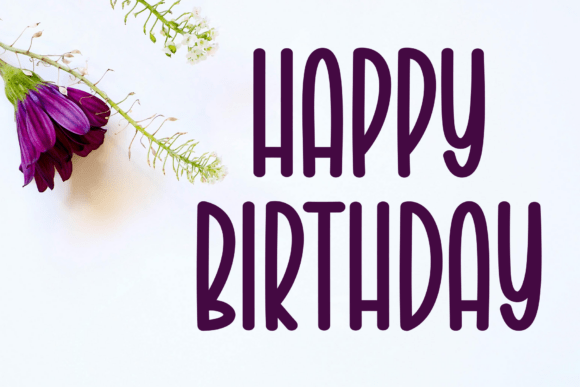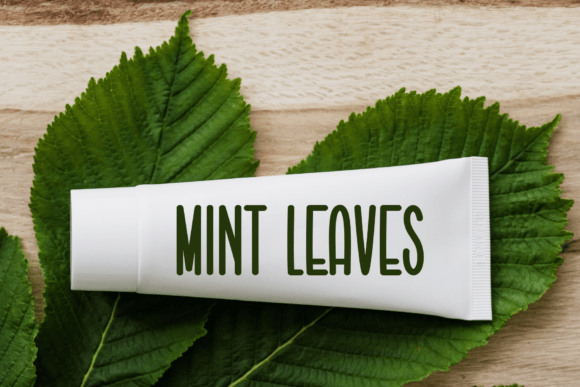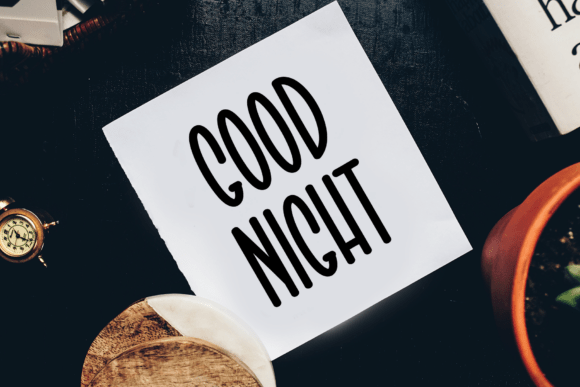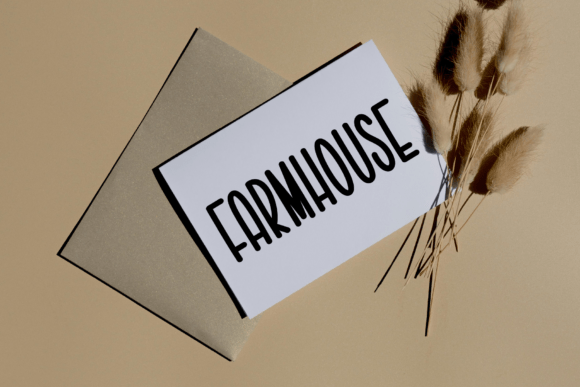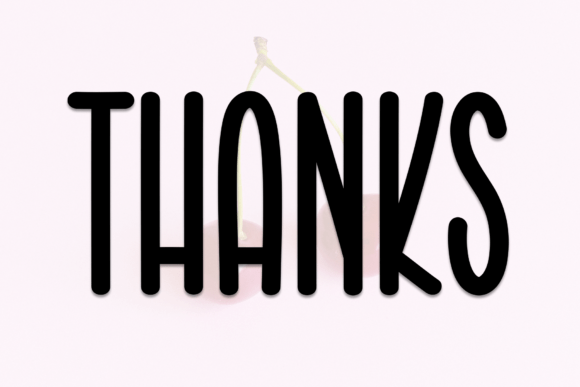
Introducing Cherry Font: The Perfect Blend of Luxury and Casualness
Are you a designer or crafter looking for a font that exudes elegance and sophistication, yet still has a relaxed and sporty vibe? Look no further than Cherry Font! This display font, designed to resemble marker-drawn letters, is perfect for adding a touch of luxury and whimsy to your designs.
What is Cherry Font?
Cherry Font is a unique and stylish display font that mimics the look of marker-drawn letters. Its casual, hand-drawn feel makes it perfect for a wide range of design applications, from branding and logos to wedding supplies, greeting cards, and marketing promotions.
Key Features of Cherry Font
- Relaxed and Sporty Feel: Cherry Font has a laid-back, effortless vibe that’s perfect for designs that need to feel approachable and friendly.
- Luxurious and Elegant: Despite its casual feel, Cherry Font still manages to convey a sense of sophistication and luxury, making it perfect for high-end branding and designs.
- Marker-Drawn Look: The font’s marker-drawn appearance gives it a unique and eye-catching quality that’s sure to make your designs stand out.
- Versatile: Cherry Font can be used for a wide range of design applications, from digital projects to print materials.
Use Cases for Cherry Font
So, what can you use Cherry Font for? The possibilities are endless! Here are a few ideas to get you started:
- Branding and Logos: Cherry Font is perfect for creating unique and memorable logos that stand out from the crowd.
- Wedding Supplies: Add a touch of elegance and whimsy to your wedding designs, from invitations to decorations.
- Greeting Cards: Cherry Font is perfect for creating eye-catching and heartfelt greeting cards for any occasion.
- Fashion and Lookbooks: Use Cherry Font to add a touch of luxury and sophistication to your fashion designs and lookbooks.
- Marketing Promotions: Make your marketing materials stand out with Cherry Font’s unique and eye-catching style.
Tips for Using Cherry Font
Here are a few tips for getting the most out of Cherry Font:
- Experiment with Colors: Cherry Font looks great in a wide range of colors, so don’t be afraid to experiment and find the perfect hue for your design.
- Play with Pairings: Cherry Font pairs well with a wide range of fonts, so try pairing it with different fonts to create a unique and interesting look.
- Use it Sparingly: While Cherry Font is perfect for headlines and titles, it can be overwhelming if used too much. Use it sparingly to create a balanced design.
Cherry Font is a unique and versatile display font that’s perfect for designers and crafters looking to add a touch of luxury and whimsy to their designs. With its relaxed and sporty feel, marker-drawn look, and wide range of use cases, Cherry Font is sure to become a favorite in your design toolkit. So why wait? Download Cherry Font today and start creating stunning designs that stand out from the crowd!